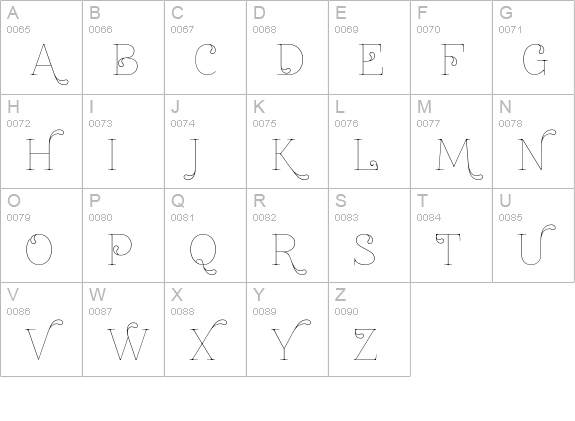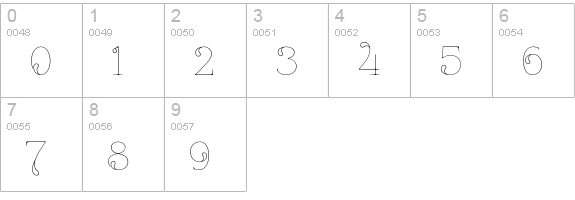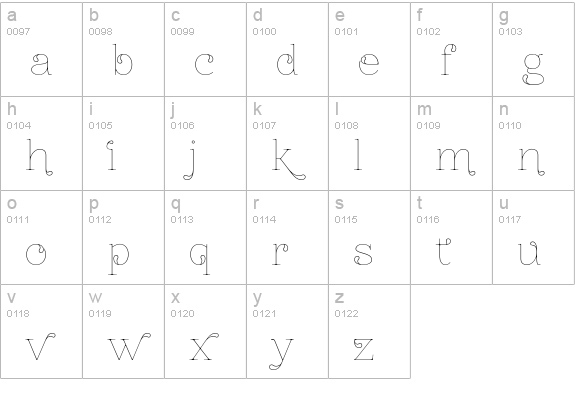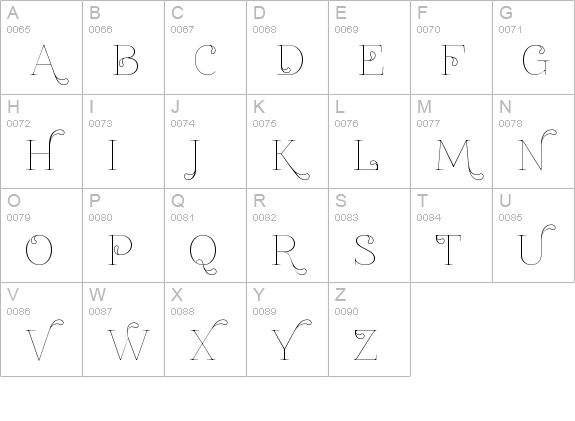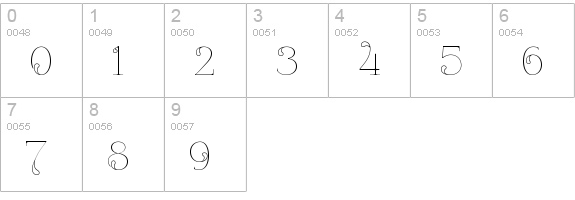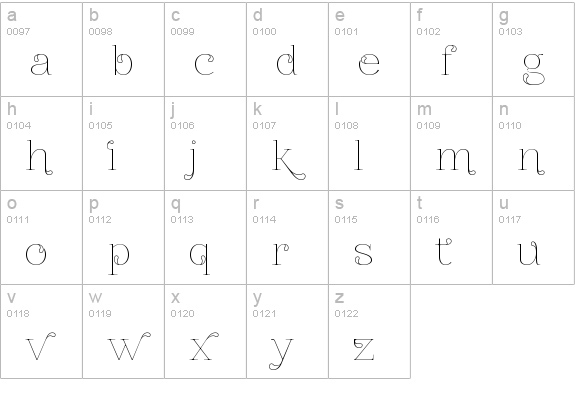
ZnikomitNo24 Thin Font Details
ZnikomitNo24 Thin is a delicate, low-contrast variant in the ZnikomitNo24 typeface family \xE2\x80\x94 well suited to fashion editorial, minimal branding, and high-contrast display.
ZnikomitNo24 Thin font is a delicate and elegant typeface that effortlessly captures attention with its refined and sophisticated strokes. Crafted with meticulous precision, this font exudes a sense of timeless beauty, making it perfect for various design projects that require an understated yet impactful touch. With its slender and graceful letters, ZnikomitNo24 Thin font adds a touch of sophistication to any design. Whether it's for branding, editorial layouts, or invitations, this font effortlessly elevates the visual appeal of any project. Its clean lines and subtle curves create a harmonious balance that is both pleasing to the eye and easy to read, making it suitable for both print and digital applications. What makes ZnikomitNo24 Thin font even more exceptional is that it is available for free download at FontsMarket.com. This means that designers and creatives can easily access this stunning typeface without any cost, allowing them to enhance their creations without breaking the bank. The user-friendly interface of FontsMarket.com makes it a breeze to download and install this font, making it accessible to designers of all skill levels. Whether you're working on a professional project or simply looking to add a touch of elegance to your personal endeavors, ZnikomitNo24 Thin font is the perfect choice. Its timeless design, combined with its availability as a free download on FontsMarket.com, makes it a must-have for any designer's toolkit. So go ahead, embrace the beauty of ZnikomitNo24 Thin font and let it inspire your creativity to new heights.